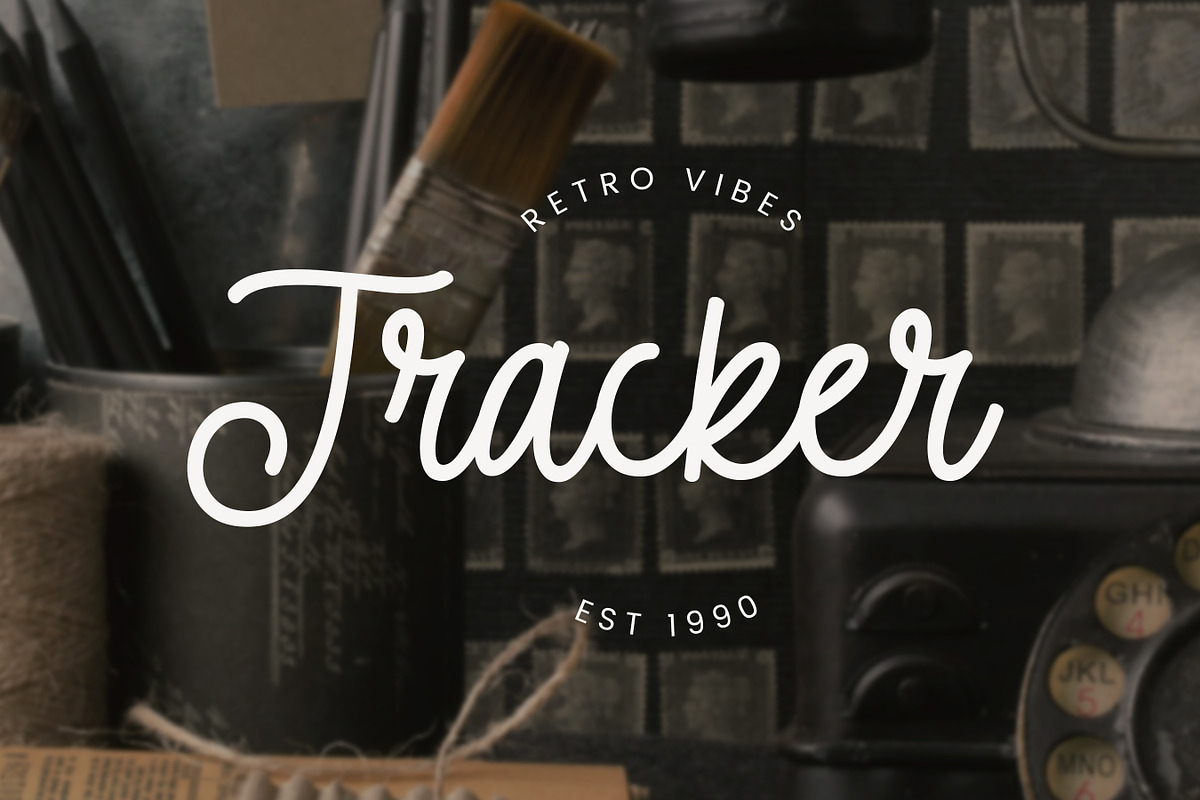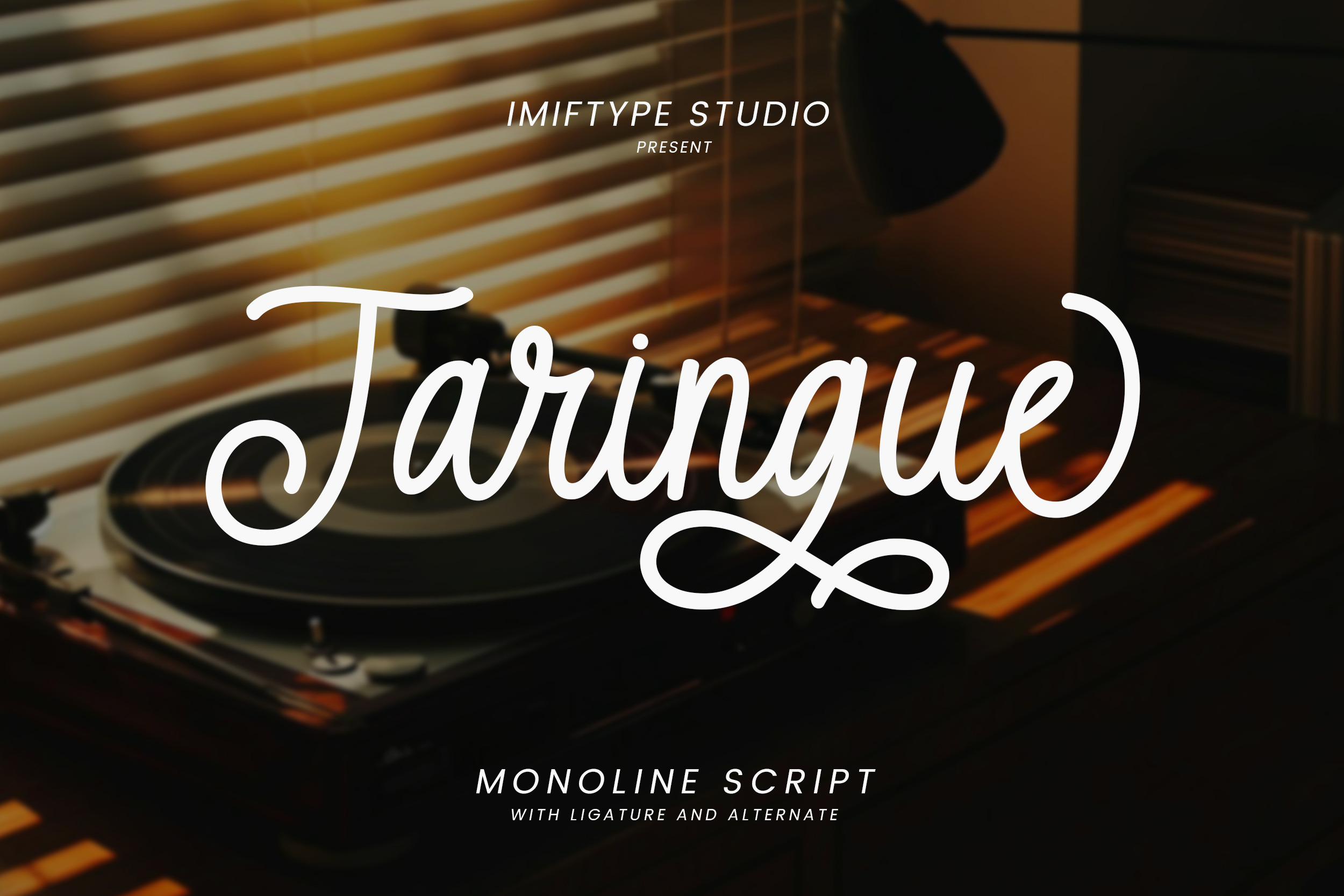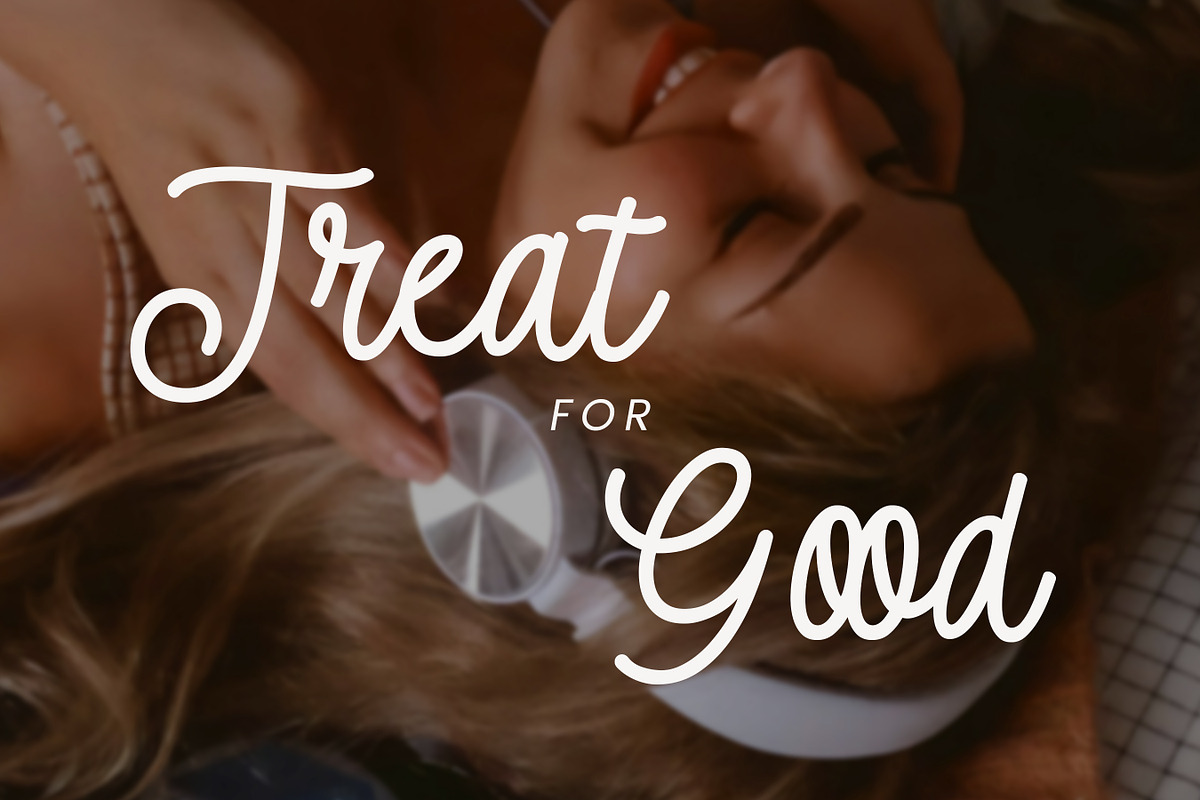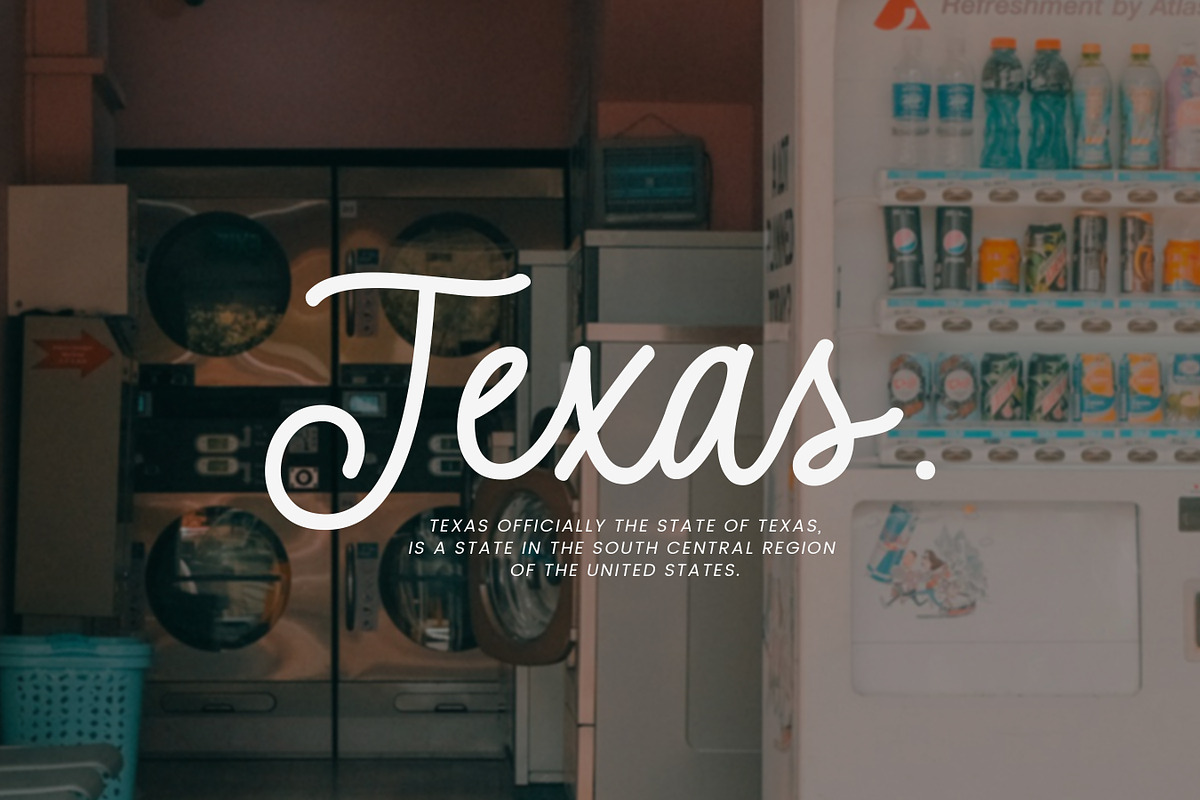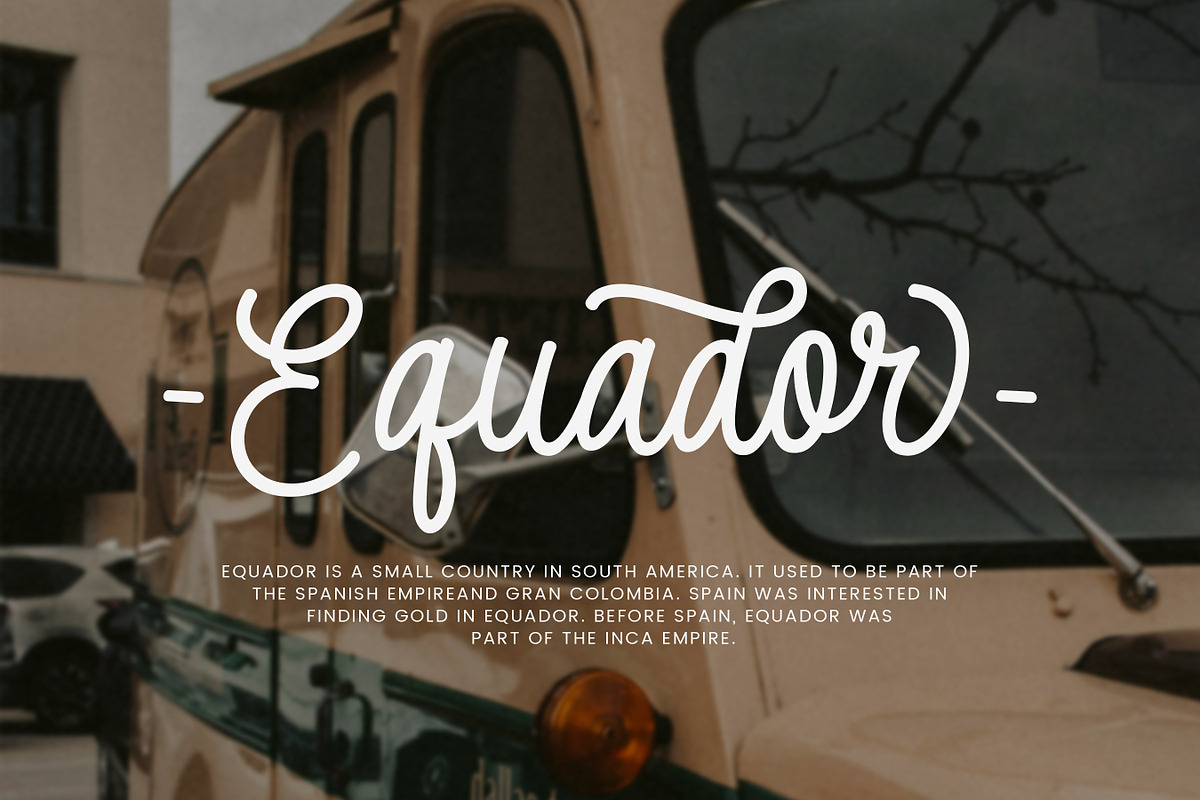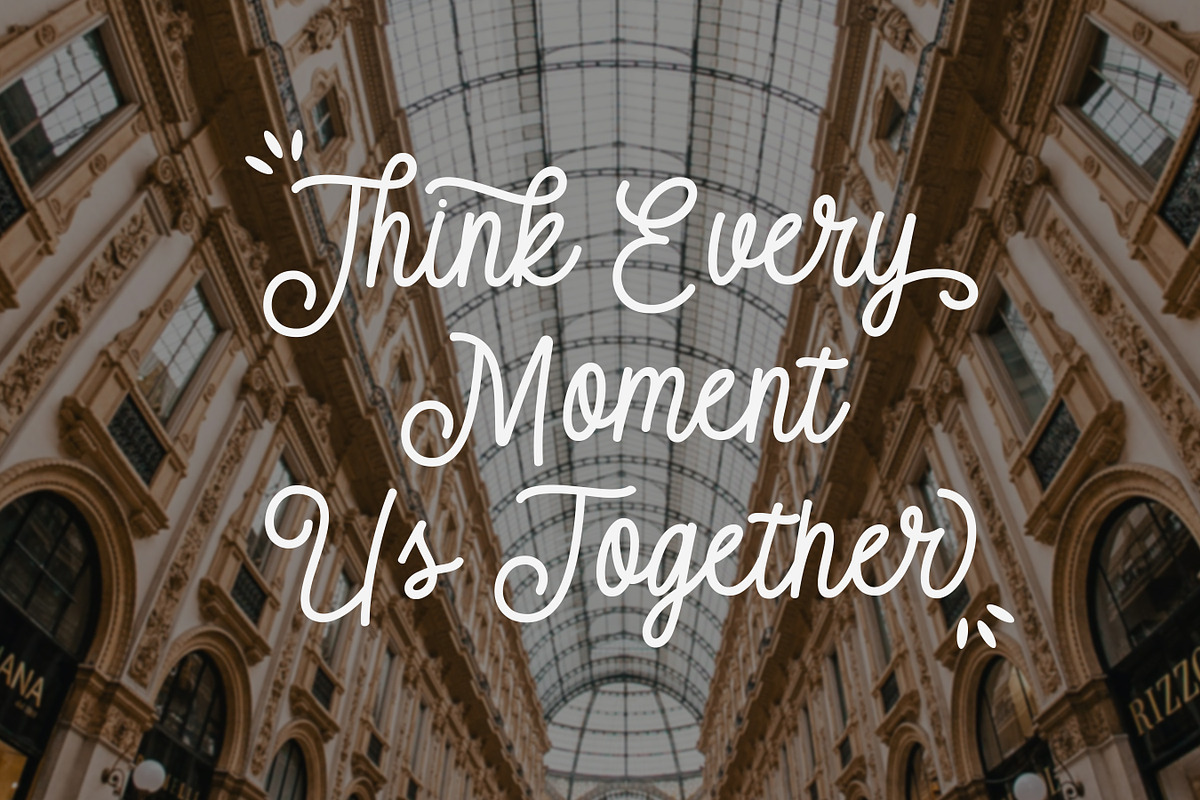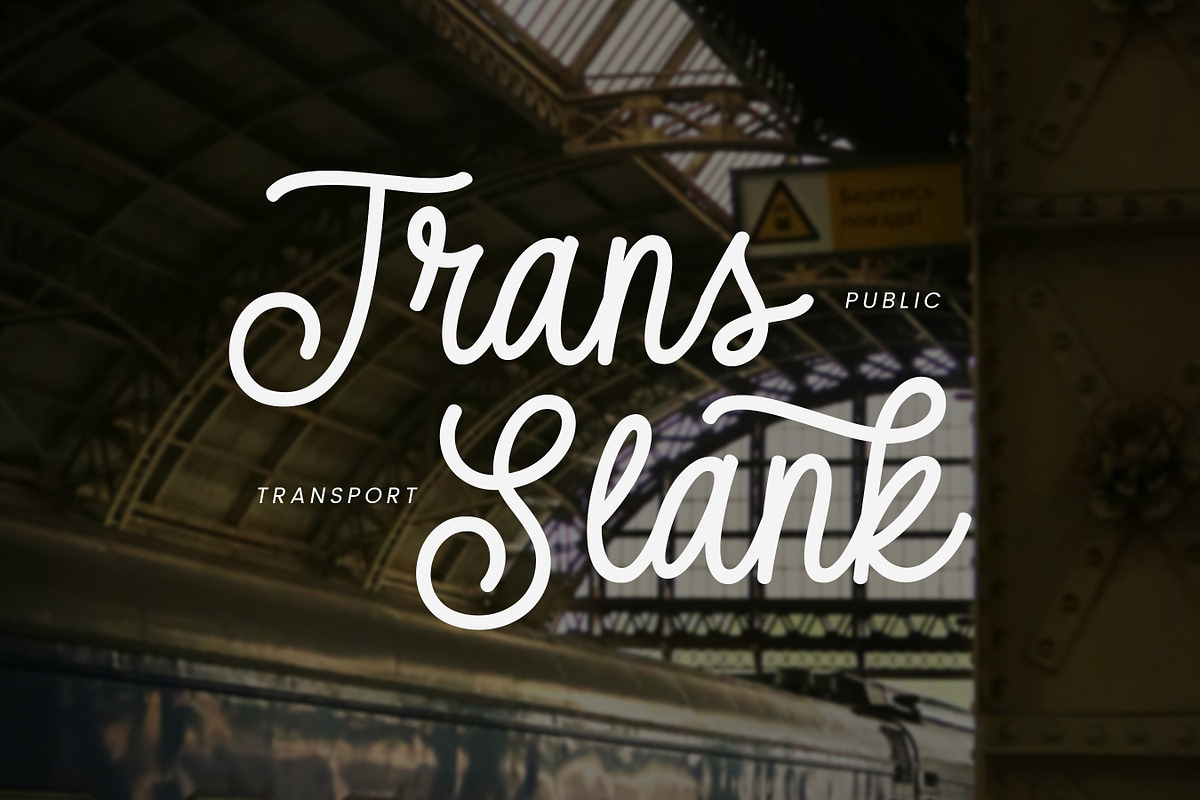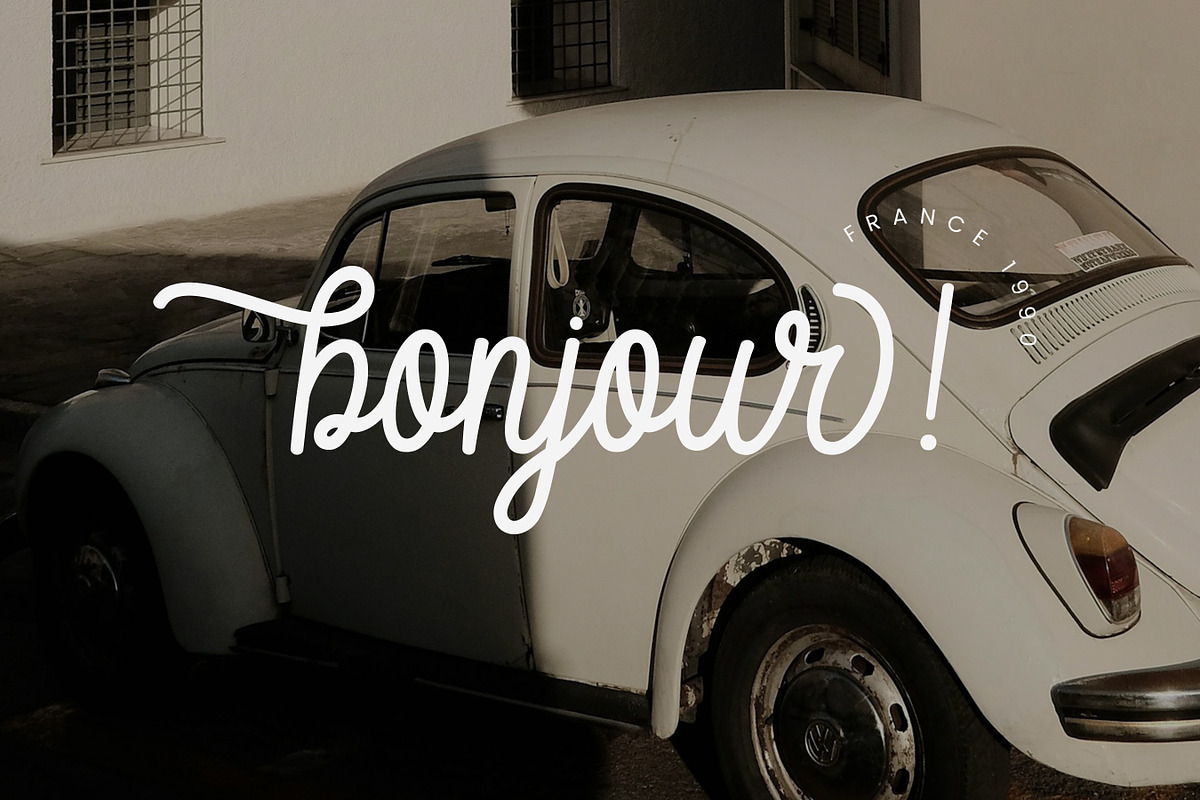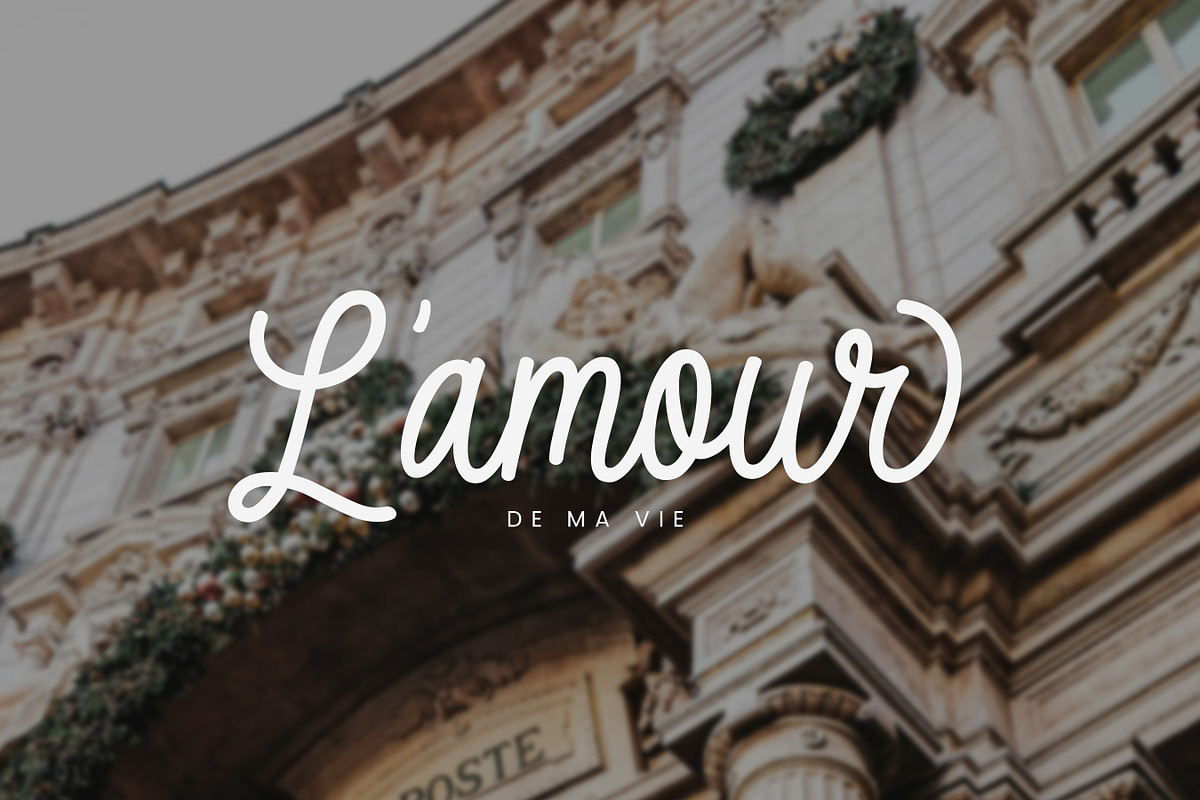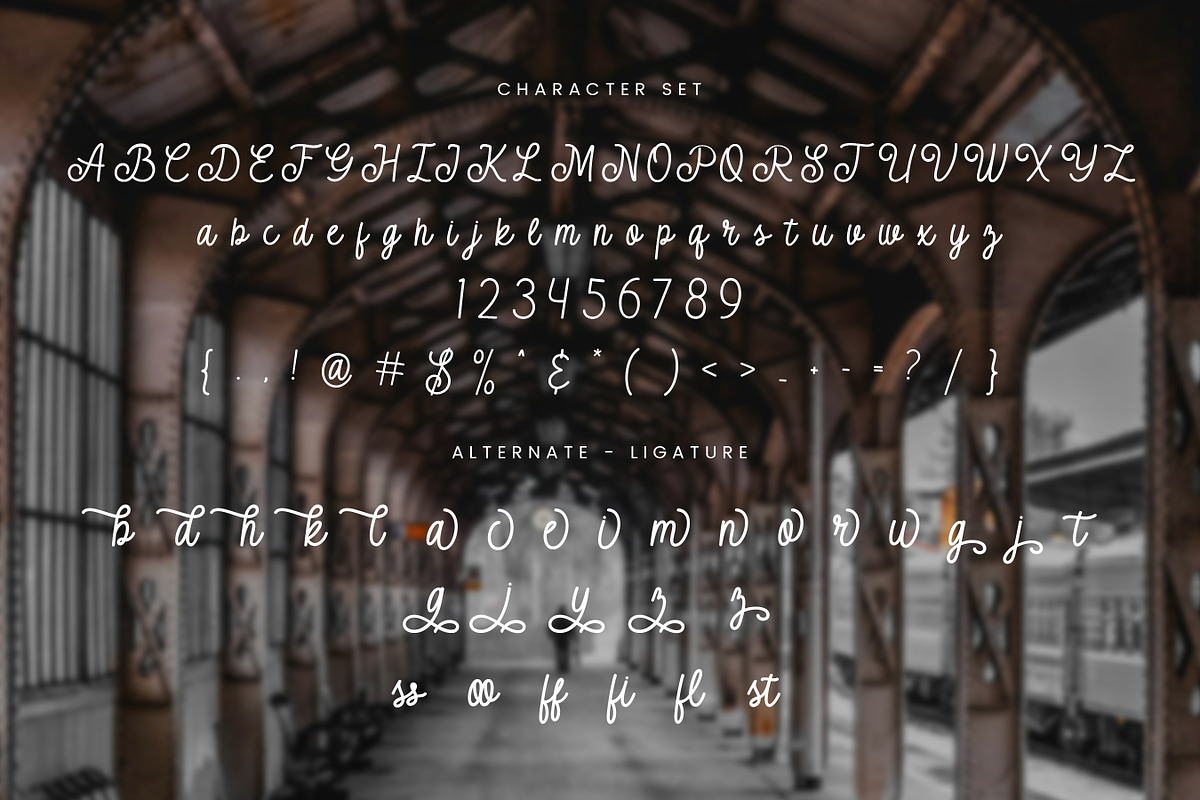
Taringue – Monoline Script Font
Taringue is a monoline script font created with smooth strokes, clean curves, and elegant ligatures. Designed to feel natural and balanced, this font delivers a modern handwritten style that looks simple, stylish, and highly readable.
Taringue is perfect for logos, branding, packaging, posters, quotes, social media graphics, apparel designs, and editorial projects. Its monoline structure gives a consistent and minimal look, while the ligatures and alternates add a subtle decorative touch that makes your typography stand out.
This font works beautifully for both digital and print use. Whether you are creating modern branding, lifestyle visuals, or vintage-inspired layouts, Taringue provides flexibility and charm without losing clarity.
Carefully crafted for designers who appreciate clean script typography, Taringue is a versatile choice for creative projects that need a smooth, modern, and professional handwritten feel.